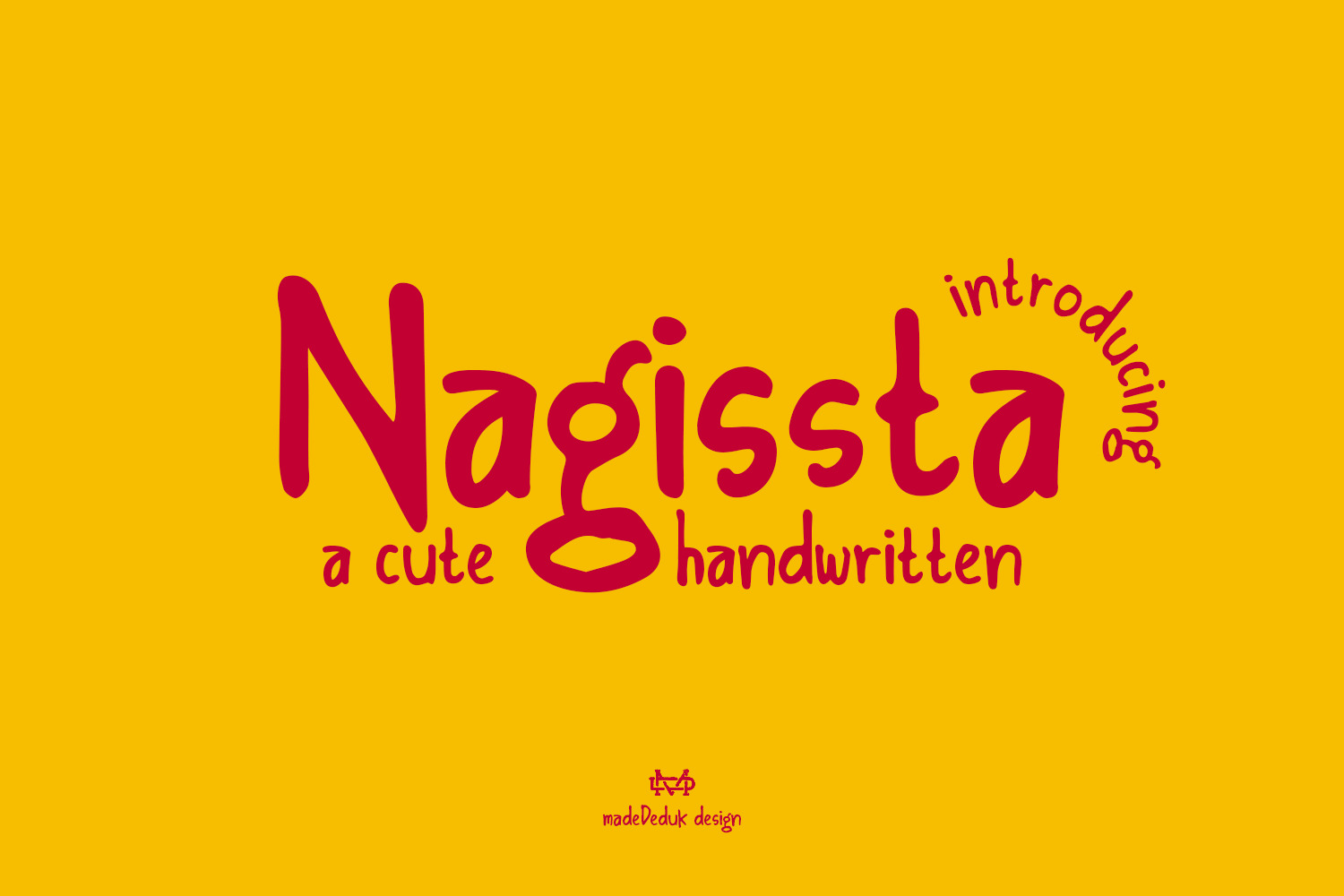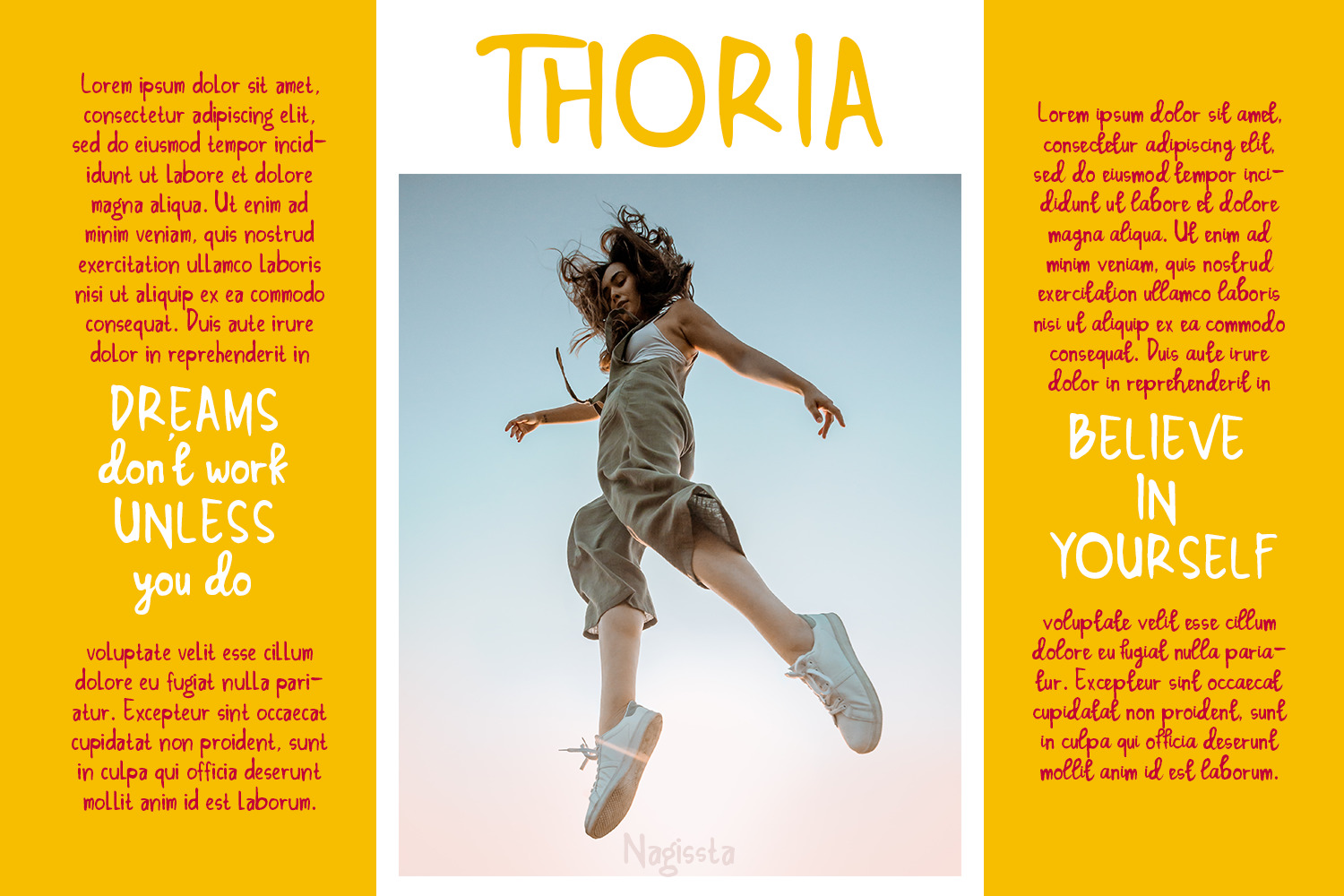
Nagissta - handwritten font
Introducing Nagissta is a cute handwritten font with a matching script and regular will be perfect for book, title branding, product packaging, invitation, quotes, t-shirt, label, poster, logo etc.
Feature
- Number & Symbol
- International Glyphs
- Ligature